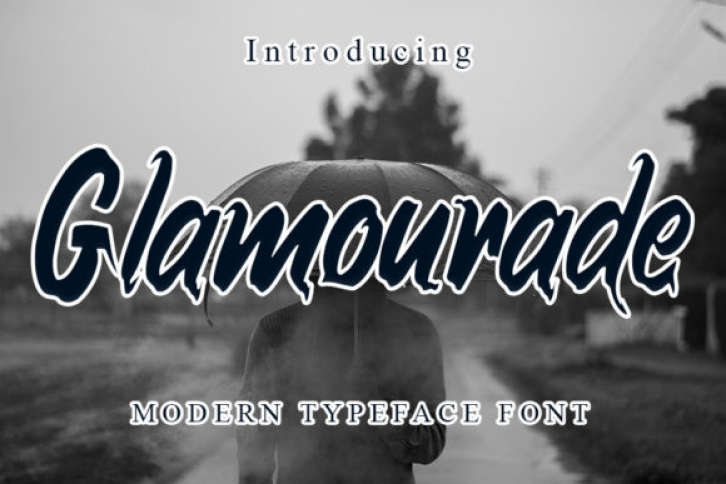
Glamourade is a sweet and elegant typeface font. It maintains its classy calligraphic influences while feeling contemporary and fresh. Fall in love with it and bring your projects to the highest levels!